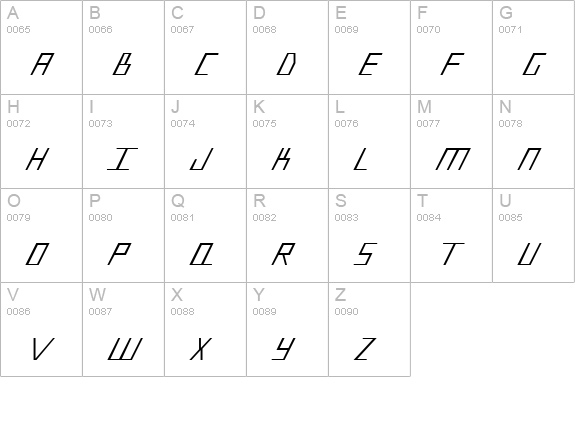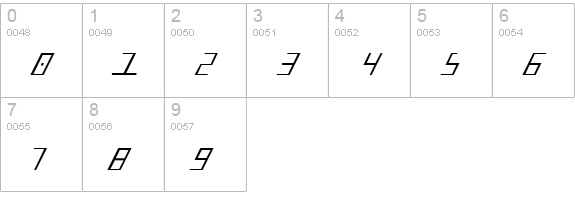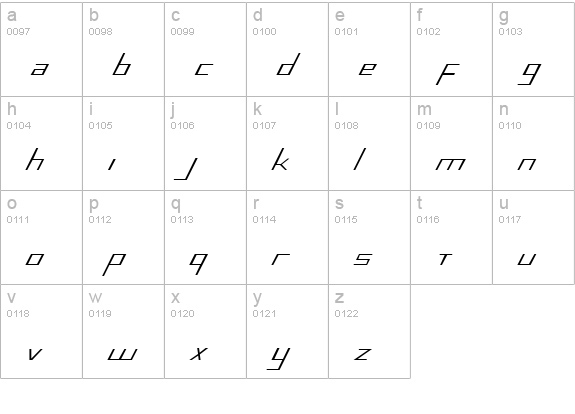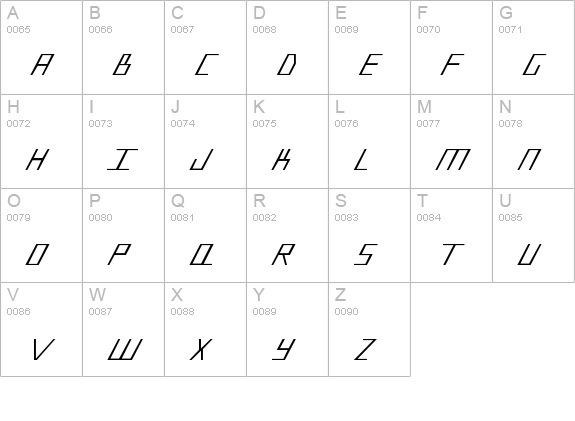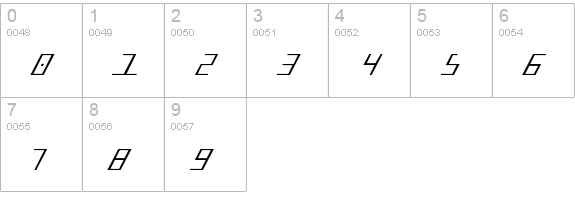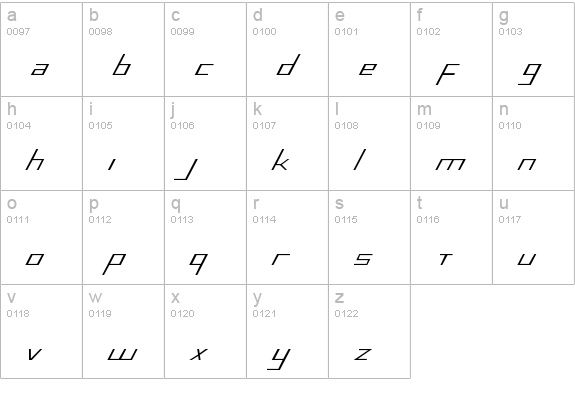
Blue July Font Details
Blue July font is a stunning display typeface that exudes elegance and sophistication. Its sleek and modern design makes it perfect for a wide range of projects, from branding to editorial designs. With its clean lines and unique curves, Blue July font is sure to make your text stand out and leave a lasting impression on your audience. The best part? Blue July font is completely free to download at FontsMarket.com. This means you can add this beautiful typeface to your collection without any cost, making it a valuable asset for any designer looking to elevate their work. So don't miss out on the opportunity to enhance your projects with Blue July font - download it today and see the difference it can make!